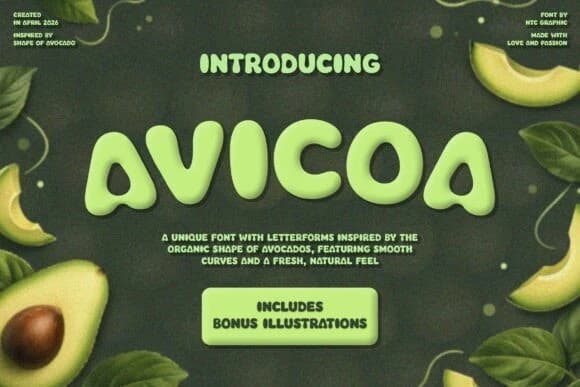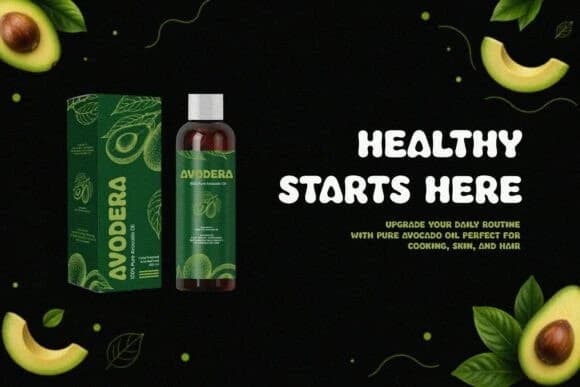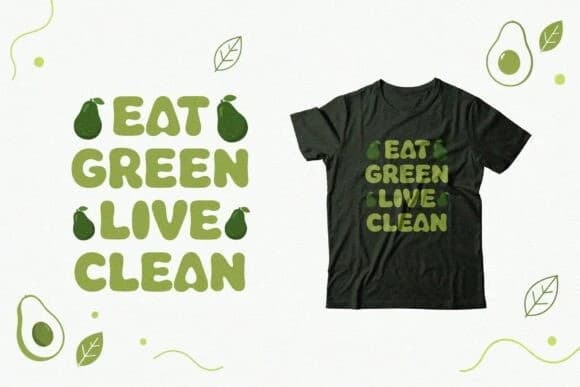
Avicoa Display Font
Avicoa Display Font is a unique avocado-inspired font featuring smooth, rounded letterforms based on the natural shape of avocados. Designed with a fresh and organic feel, this font is perfect for creating clean, friendly
Avicoa Display